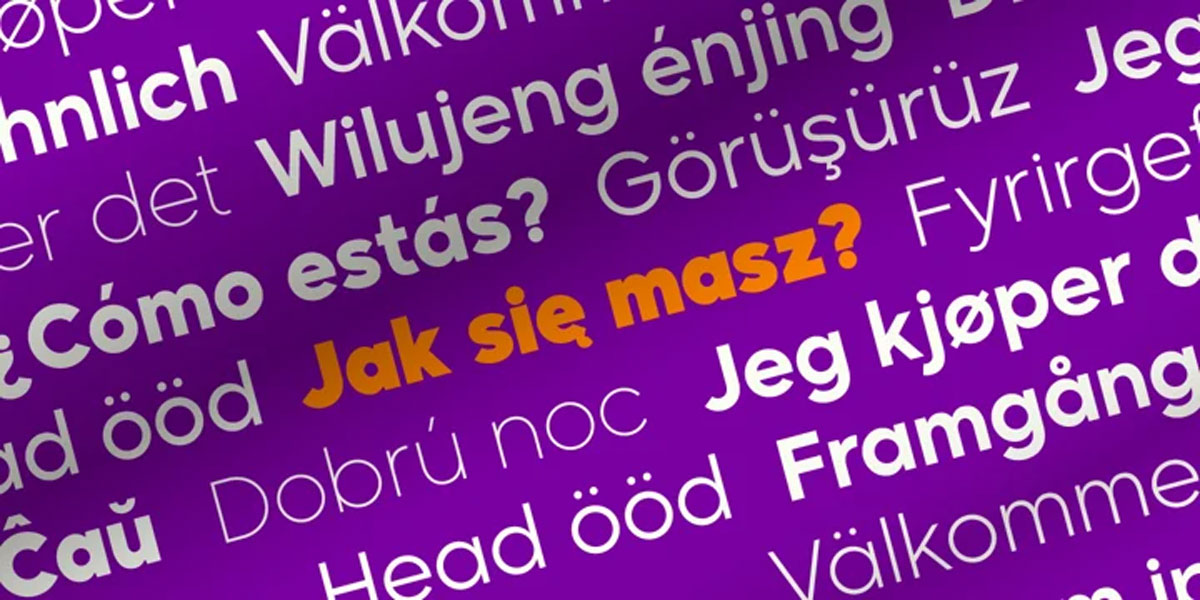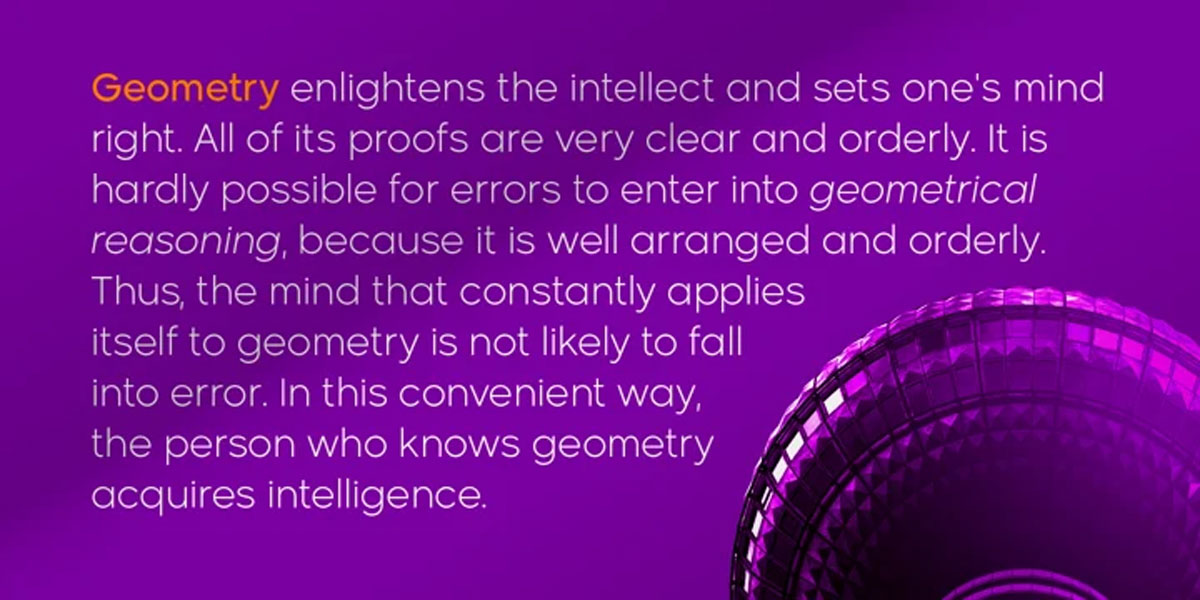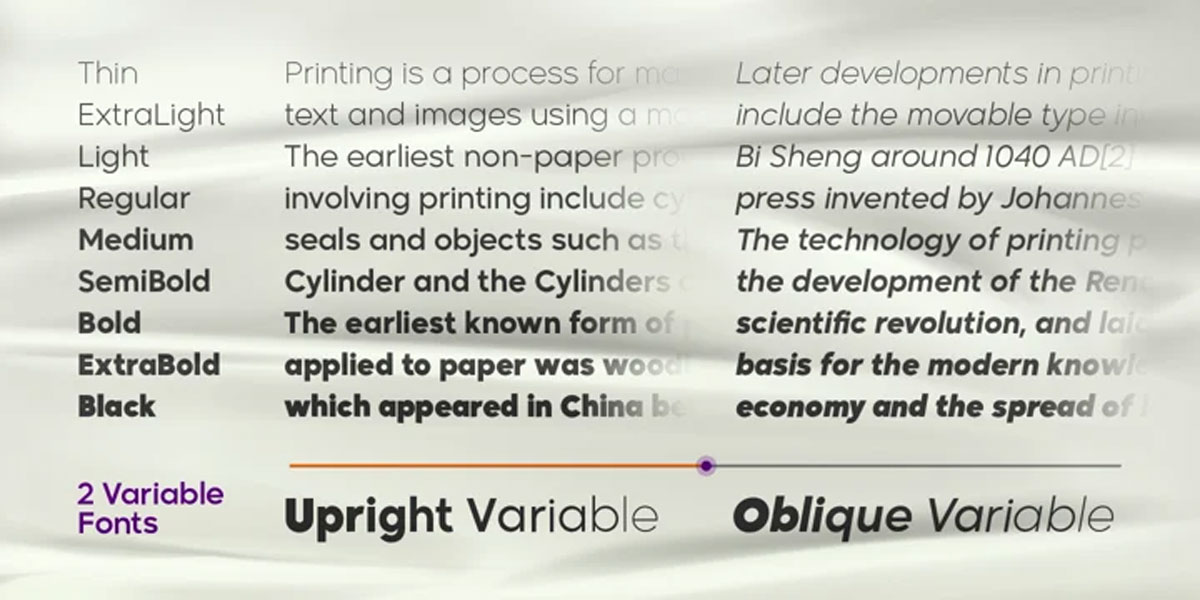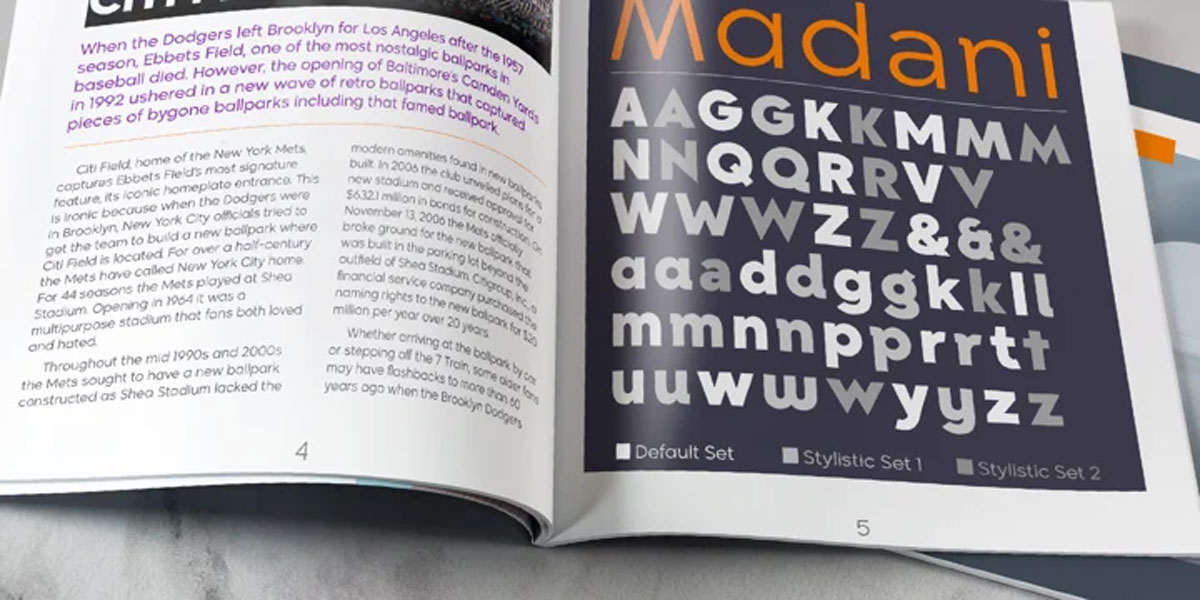
Madani Font Family
Free Download Madani Font Family with high speed direct link. Madani is a geometric sans serif consisting of 9 weights ranging from Thin to Black and matching Oblique. With a touch of character choice, adding tails to some glyphs on the stylistic set 1 and pointing joined at some of the tapered characters in the stylistic set 2, suitable for display and body text font.